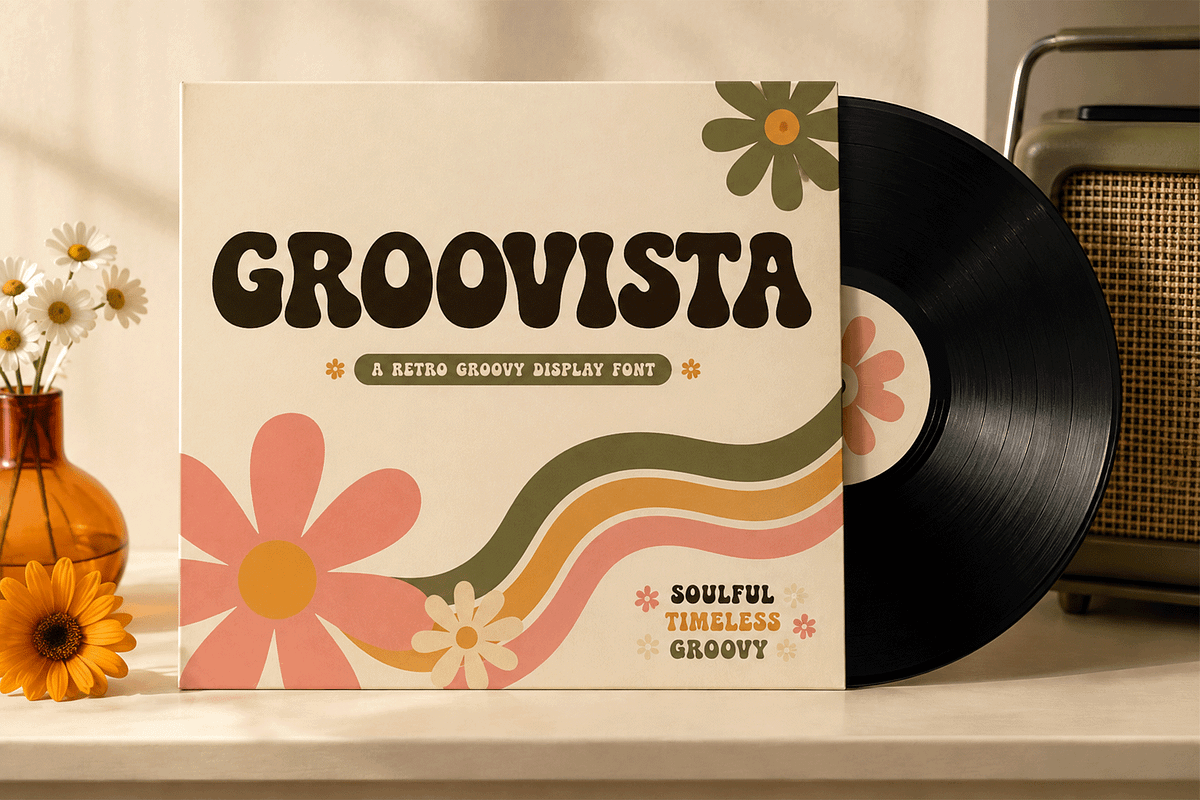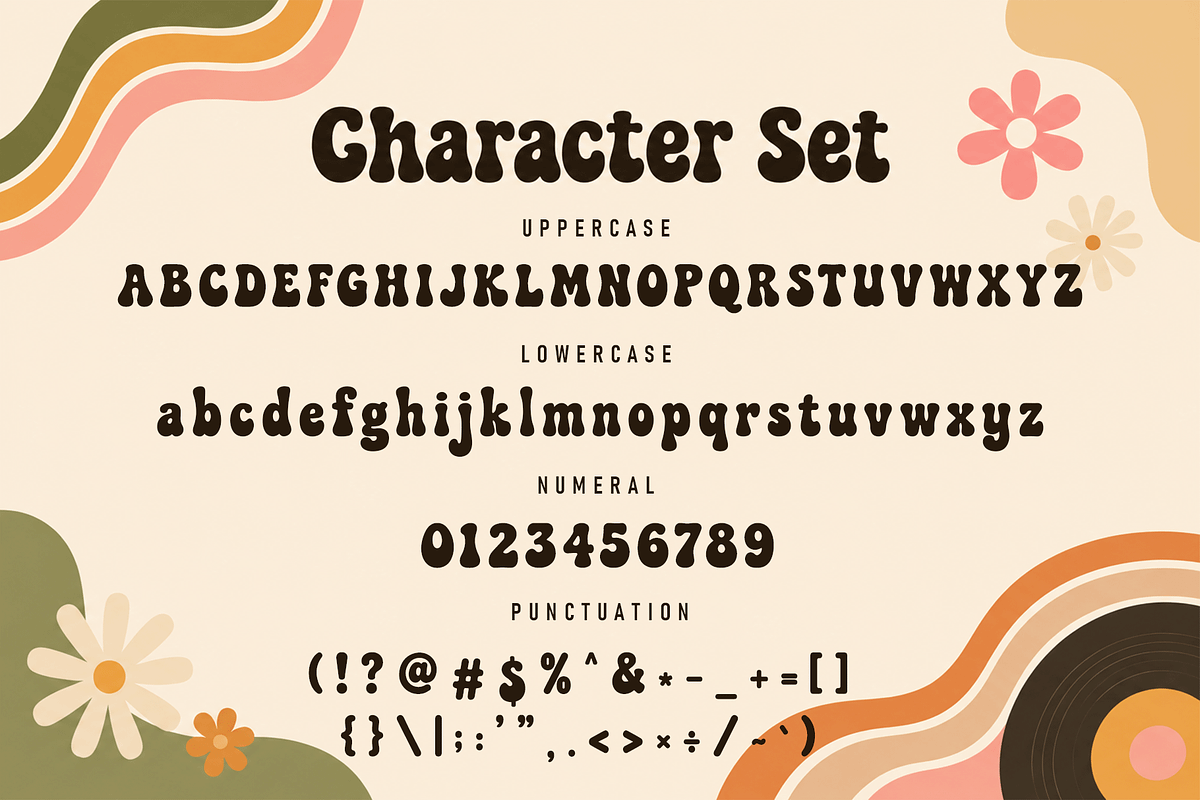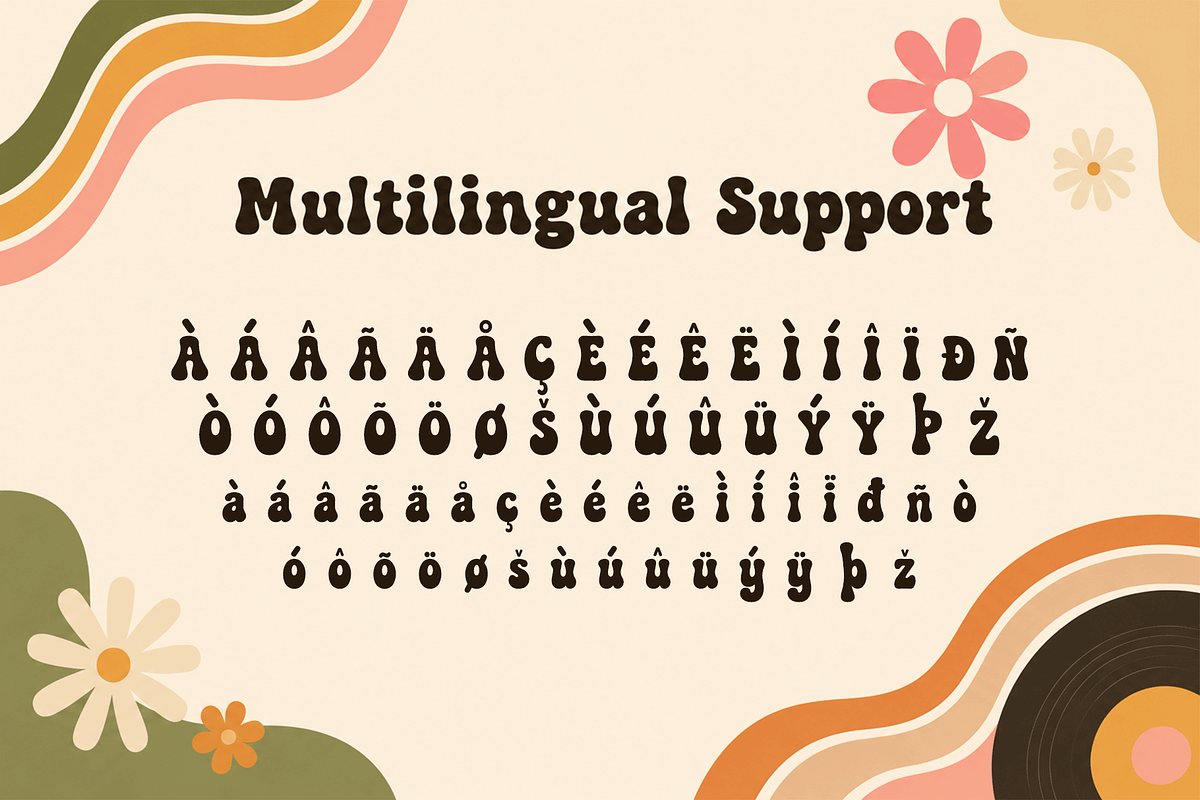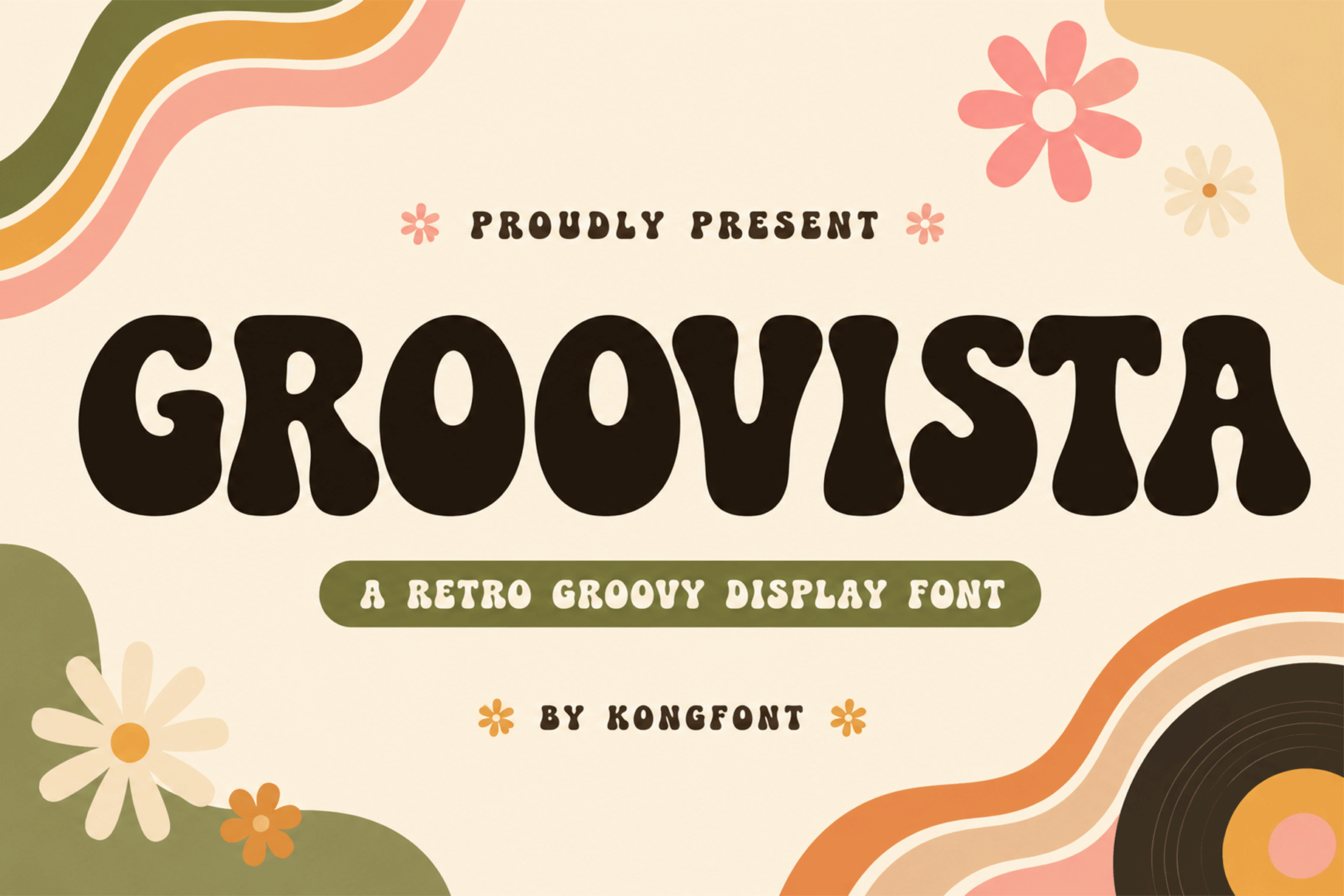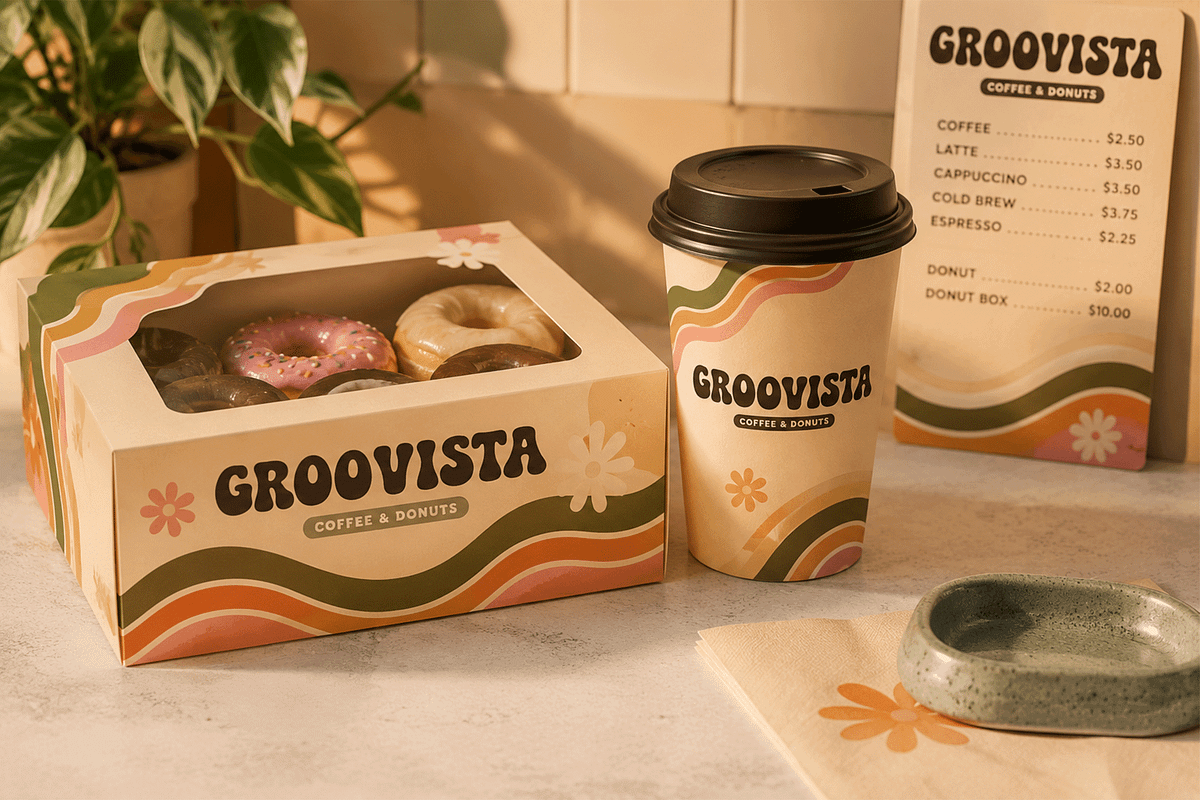
Groovista - Retro Groovy Font
Groovista - Retro Groovy Display Font
Meet "Groovista," a retro groovy display font inspired by the bold, playful typography of the 1960s and 1970s. Featuring chunky letterforms, soft curves, and a relaxed vintage personality, Groovista brings nostalgic charm and expressive character to every composition.
Groovista works beautifully for music projects, festival graphics, retro fashion, café branding, vintage merchandise, creative packaging, and nostalgic advertising. Its playful personality makes it especially suitable for projects inspired by flower power, vinyl culture, colorful retro graphics, and classic groovy aesthetics.